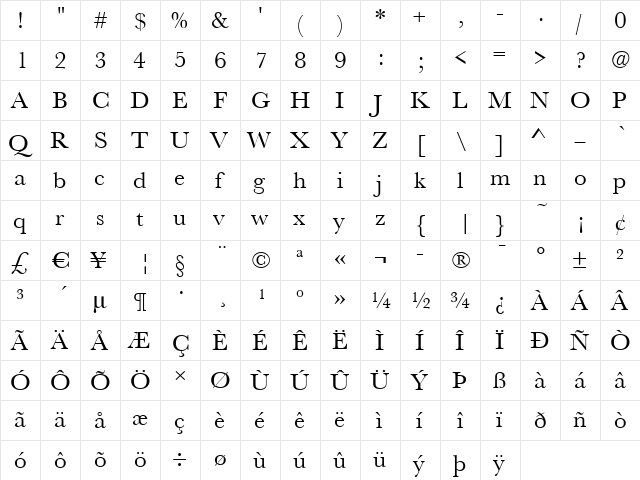
RoxanneBeckerWide Regular
Design Context for RoxanneBeckerWide Typeface
RoxanneBeckerWide is a composed and adaptable typeface that performs quietly and consistently across a wide range of design contexts.